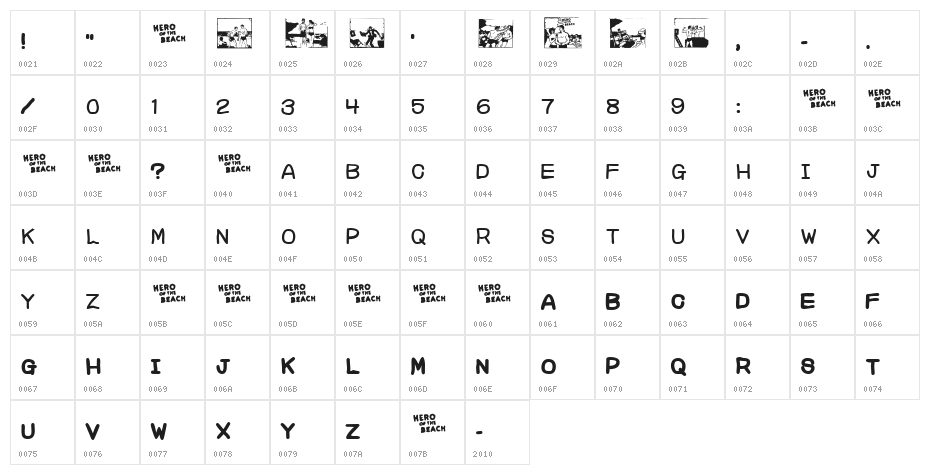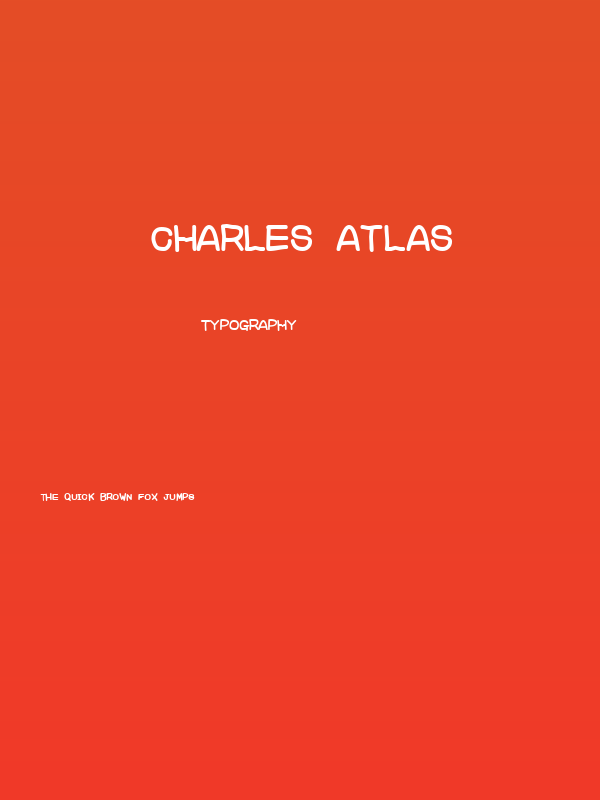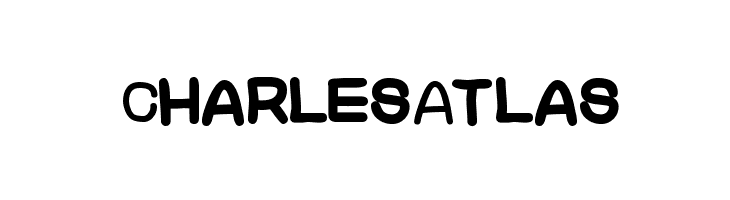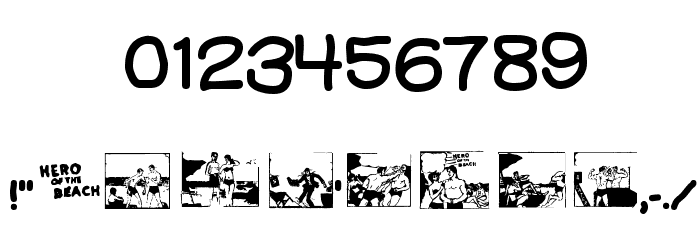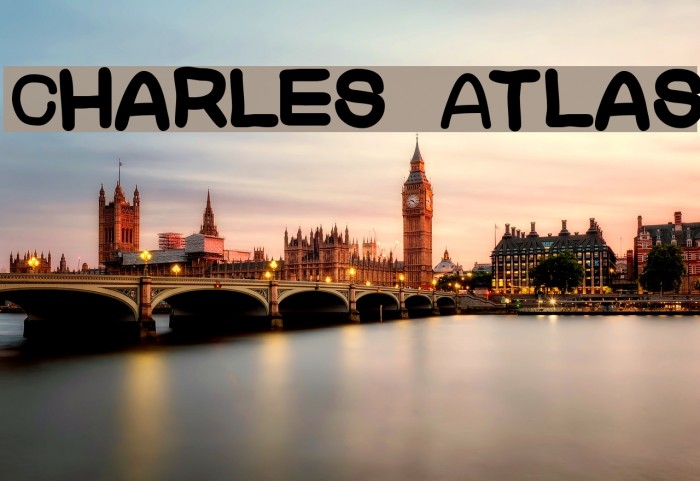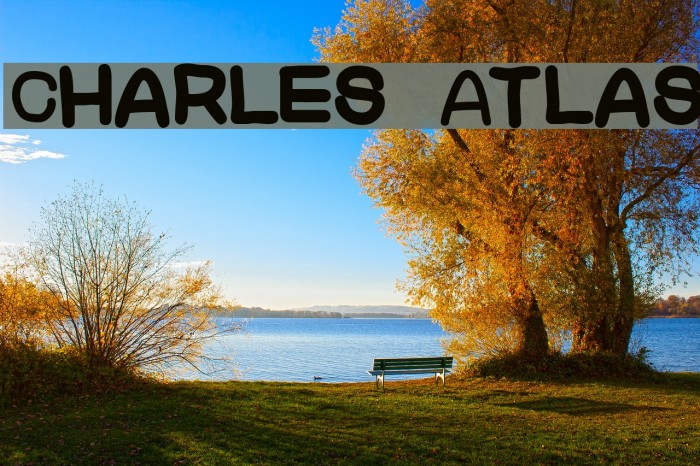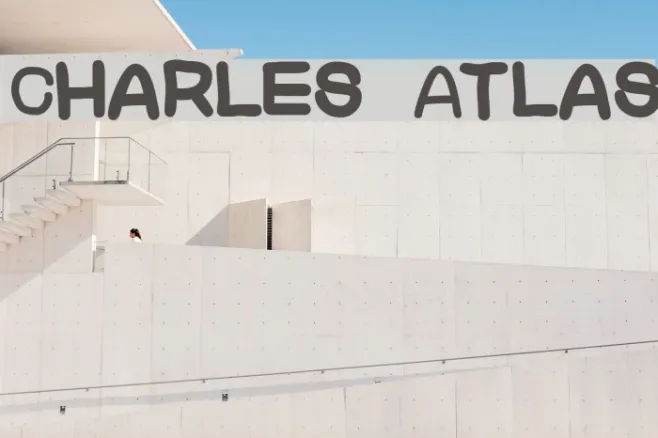
Charles Atlas Font
Charles Atlas Description
This font features a bold, playful style with rounded edges and a slightly irregular form, giving it a hand-drawn appearance. The characters are thick and substantial, providing a strong visual impact. The uppercase letters are consistent in height, while the lowercase letters maintain a similar weight, contributing to a cohesive look. The numbers are equally bold and rounded, matching the overall aesthetic. This font exudes a casual and friendly vibe, making it suitable for informal and creative projects.
| Overall Style | Playful, Casual |
| Proposed Projects | Ideal for comic books, children's books, playful branding, and casual posters. |